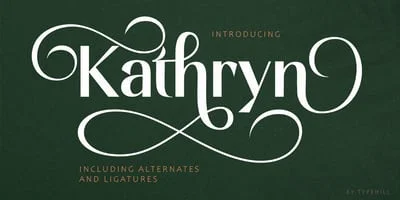
Kathryn Font
Kathryn Font is ideal for elegant personal branding, sophisticated wedding invitations, refined beauty campaigns, graceful boutique identity, classic feminine brands, timeless jewelry marketing, upscale spa materials, distinguished lifestyle publications, refined professional services, and elegant applications that celebrate timeless feminine sophistication and classical grace.
What makes Kathryn Font truly exciting is its exquisite embodiment of classical feminine elegance and refined sophistication that captures the essence of timeless beauty and distinguished grace in contemporary design applications. This exceptional typeface combines traditional elegance with modern refinement, featuring graceful letterforms and sophisticated proportions that convey both classical heritage and contemporary relevance. The font's refined personality and feminine authenticity make it perfect for brands seeking to communicate distinguished elegance, timeless beauty, and the inspiring power of classical feminine grace that transcends trends and celebrates enduring sophistication.
The Kathryn Font family includes multiple weights and styles: Light, Regular, Medium, Bold, and Elegant variations designed for maximum sophisticated impact. Each family member maintains the distinctive refined character while offering flexibility for diverse elegant applications and classical branding systems. The comprehensive character set supports sophisticated typography needs and elegant design elements, making it suitable for international refined communications.
When you choose Kathryn Font, you're selecting a typography jewel that delivers authentic refined credibility and classical elegance to every sophisticated project. This distinguished typeface excels in applications where feminine grace and timeless sophistication are paramount, delivering exceptional elegant appeal while maintaining classical authenticity. Whether you're designing elegant brands, refined campaigns, sophisticated materials, or distinguished marketing content, this font provides the classical sophistication and feminine elegance that resonates with discerning audiences who appreciate timeless beauty, refined taste, and the enduring appeal of classical feminine grace and sophisticated design excellence.